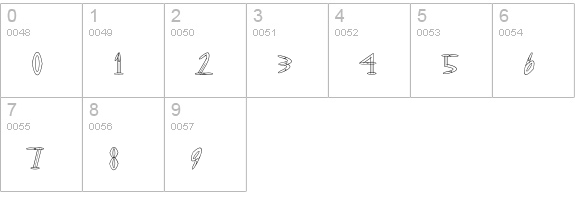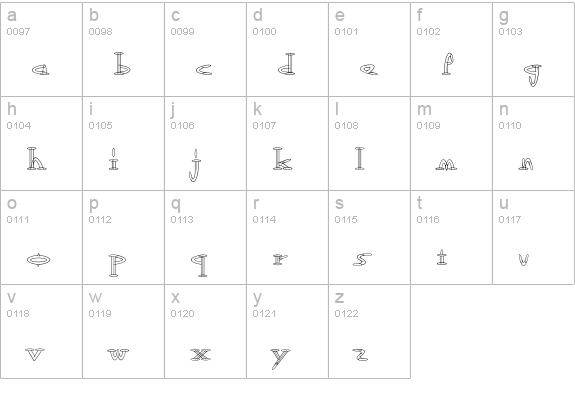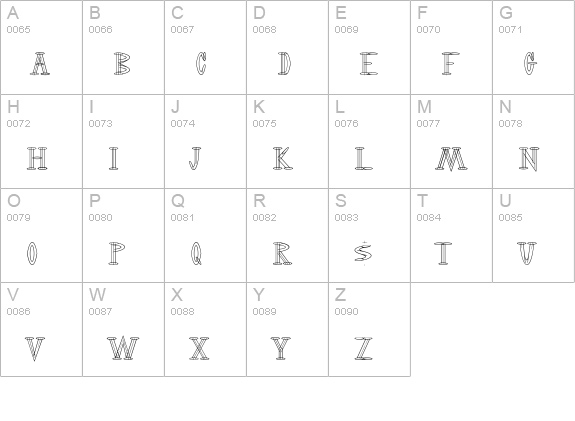
OutwestLight Font Details
OutwestLight font is a modern and elegant typeface that exudes sophistication and style. With its sleek lines and clean design, this font is perfect for a wide range of projects, from branding to editorial design. The light weight of this font adds a touch of delicacy and refinement, making it ideal for creating a subtle and sophisticated look. Best of all, OutwestLight font is completely free! You can download it at FontsMarket.com and start using it in your designs right away. Whether you're working on a logo, website, or print materials, this font will elevate your work and give it a professional edge. Don't miss out on this fantastic opportunity to enhance your projects with the timeless beauty of OutwestLight font.